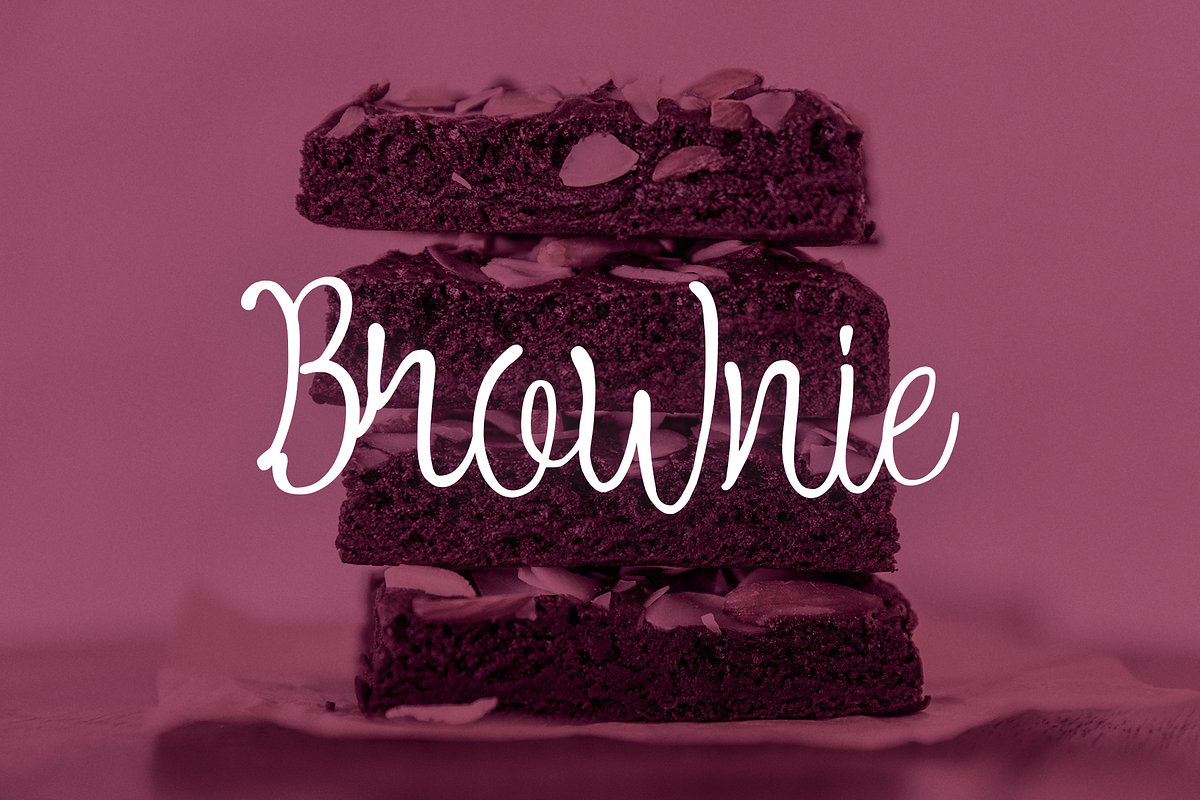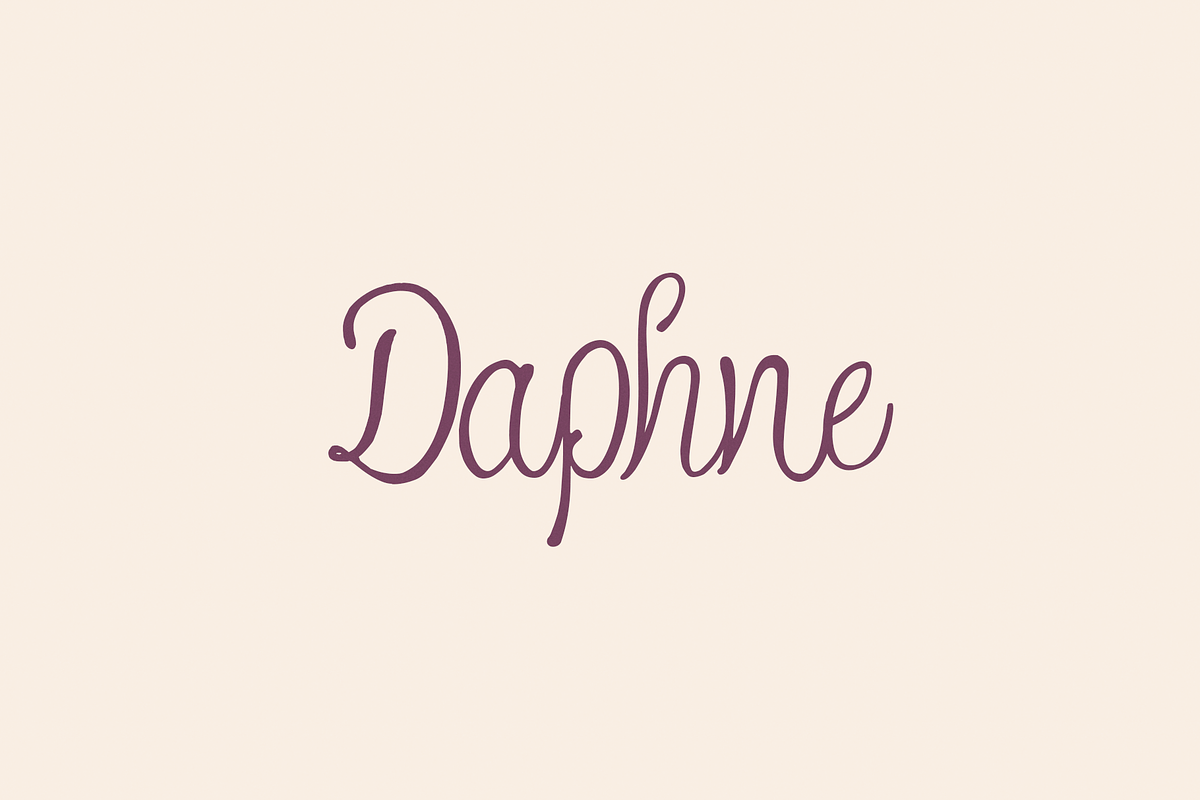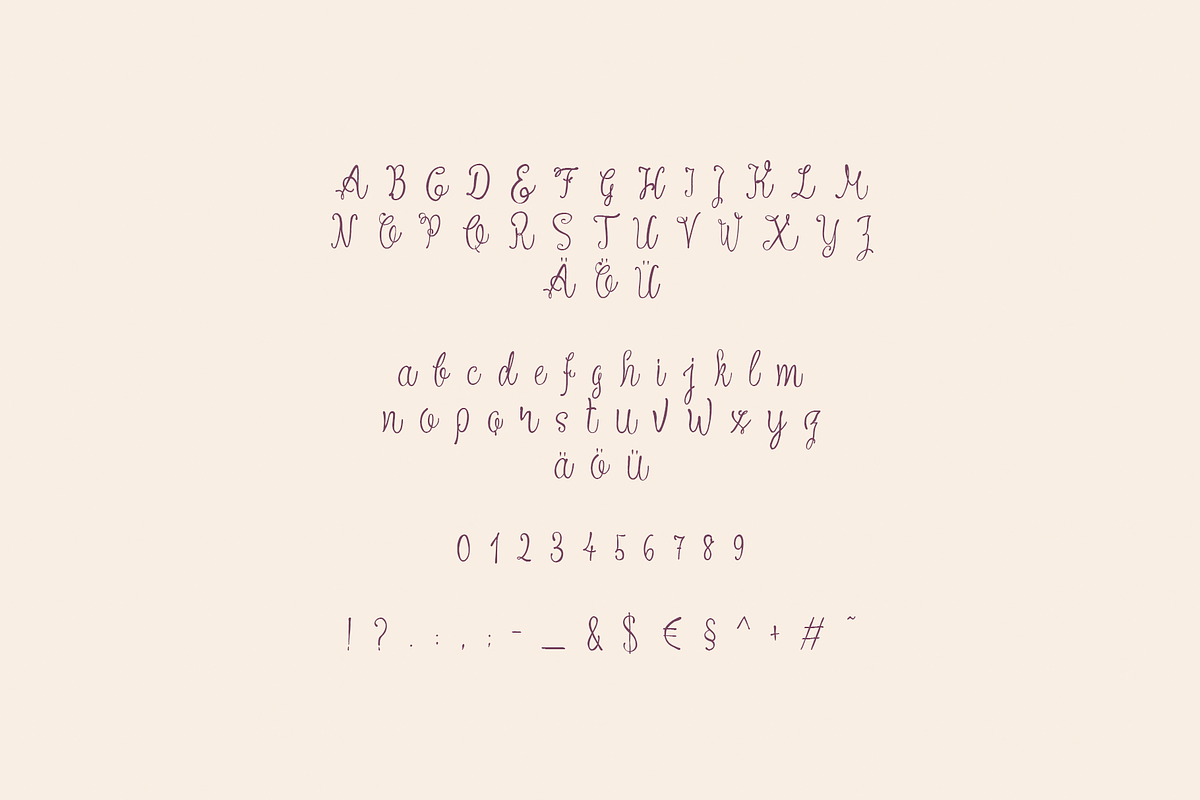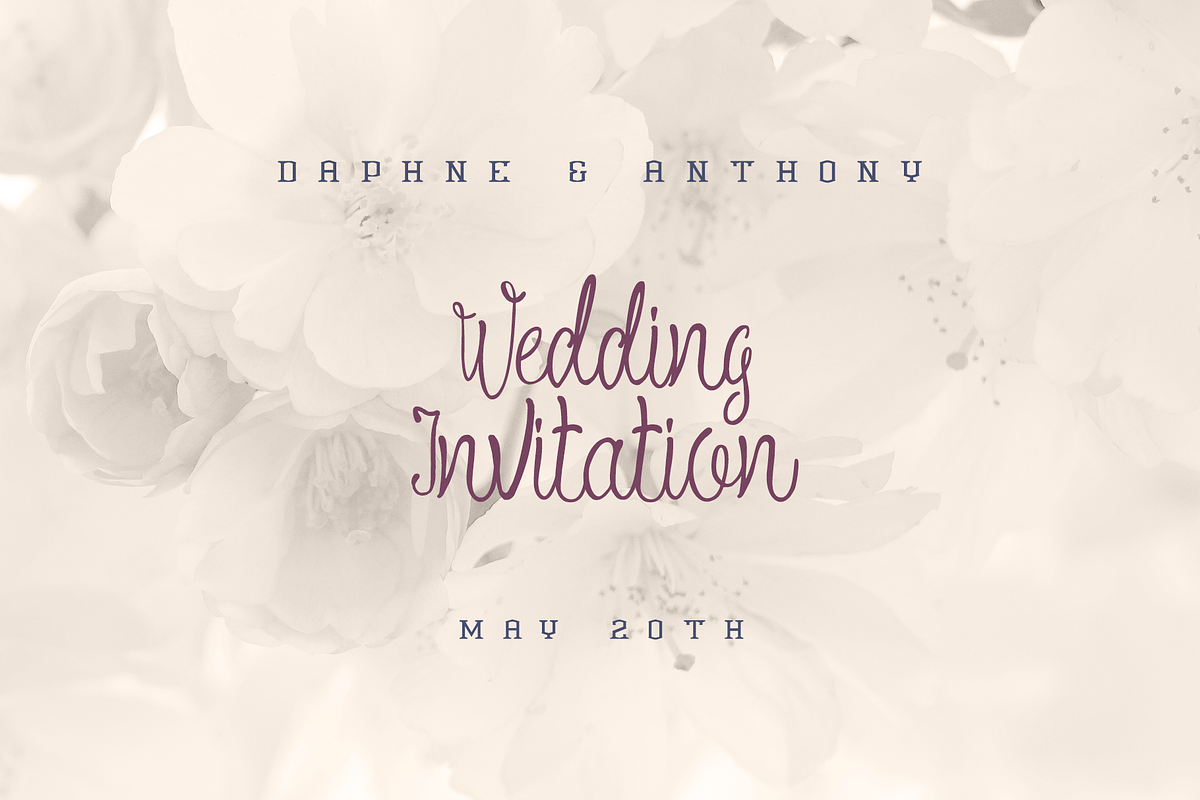
Daphne Font
Daphne is a feminine and cheeky handwritten script, fits perfect for Logos, Advertising, Headlines and Wedding Invitations
Upper & Lowercase Letters
Daphne Font by Agentur BM fits naturally into Branding, posters, packaging, typography.